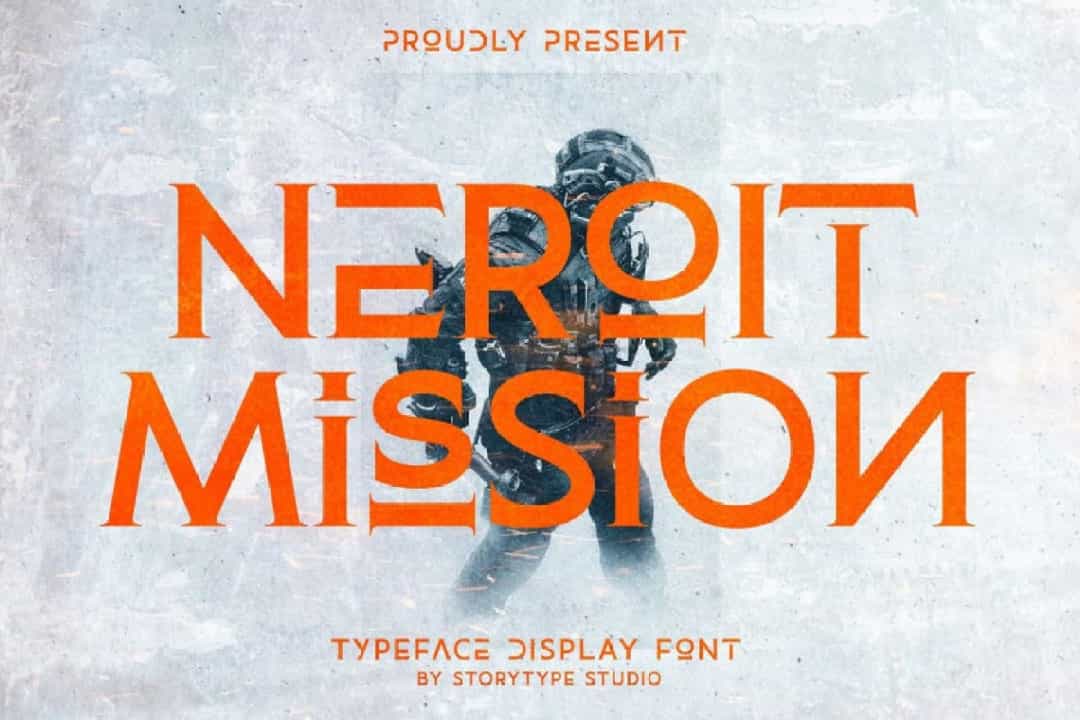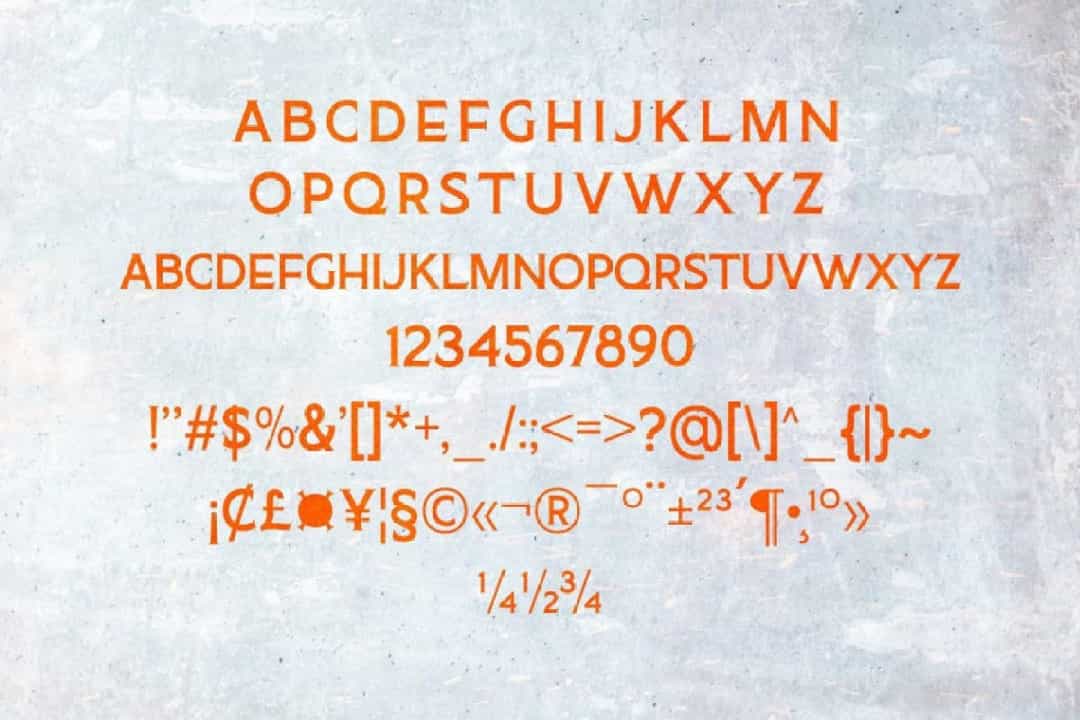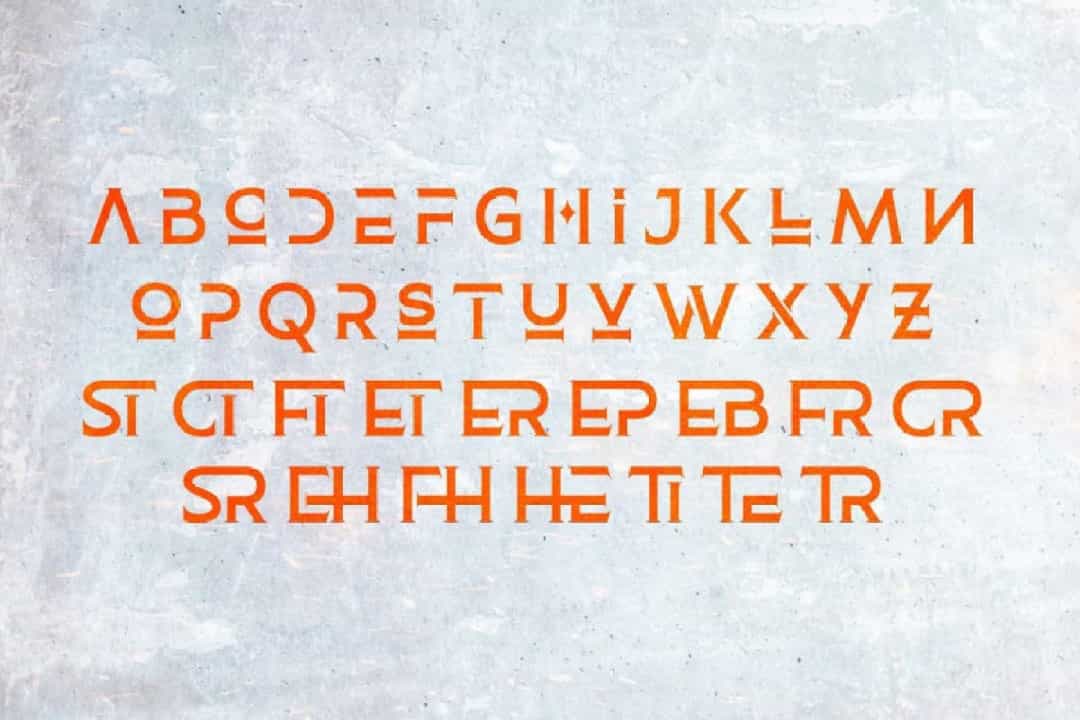
Storytype’s NEROIT MISSION Typeface, an elegant serif typeface with its own distinct design and modern appearance. Perfect for sophisticated logos, movie titles, clothing brands, magazines letters and quotes and much more, it makes an impressive first impression when used for business projects of any type or purpose.